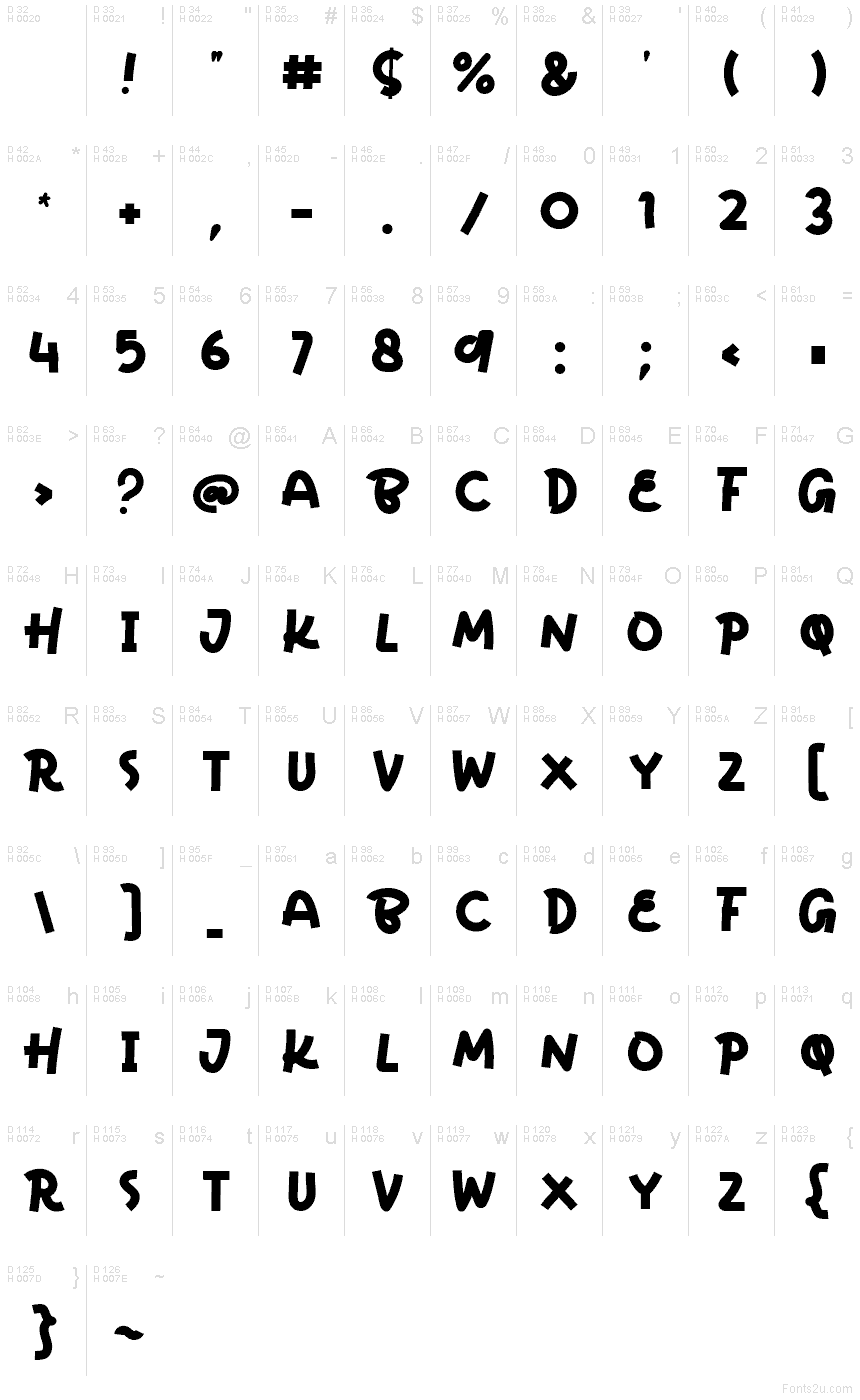
Chiclet font by Mocha Frappuccino is a free cartoon display font with a chewy, gum-drop attitude. Its bold, rounded slabs are interrupted by playful straight cuts, creating a bouncy rhythm that reads loud and friendly without turning messy. Think inky, squishy forms that hold together at large sizes and deliver a confident, candy-coated punch.
Using Chiclet, headlines pop on kids’ packaging, candy branding, birthday invites, toy logos, classroom posters, stickers, and game thumbnails. The tight shapes keep words compact, so you can stack lines without losing impact, while the chunky weight makes color blocks and outlines sing. Pair this free font with a simple geometric sans for small text, and let Chiclet take the spotlight at jumbo sizes.